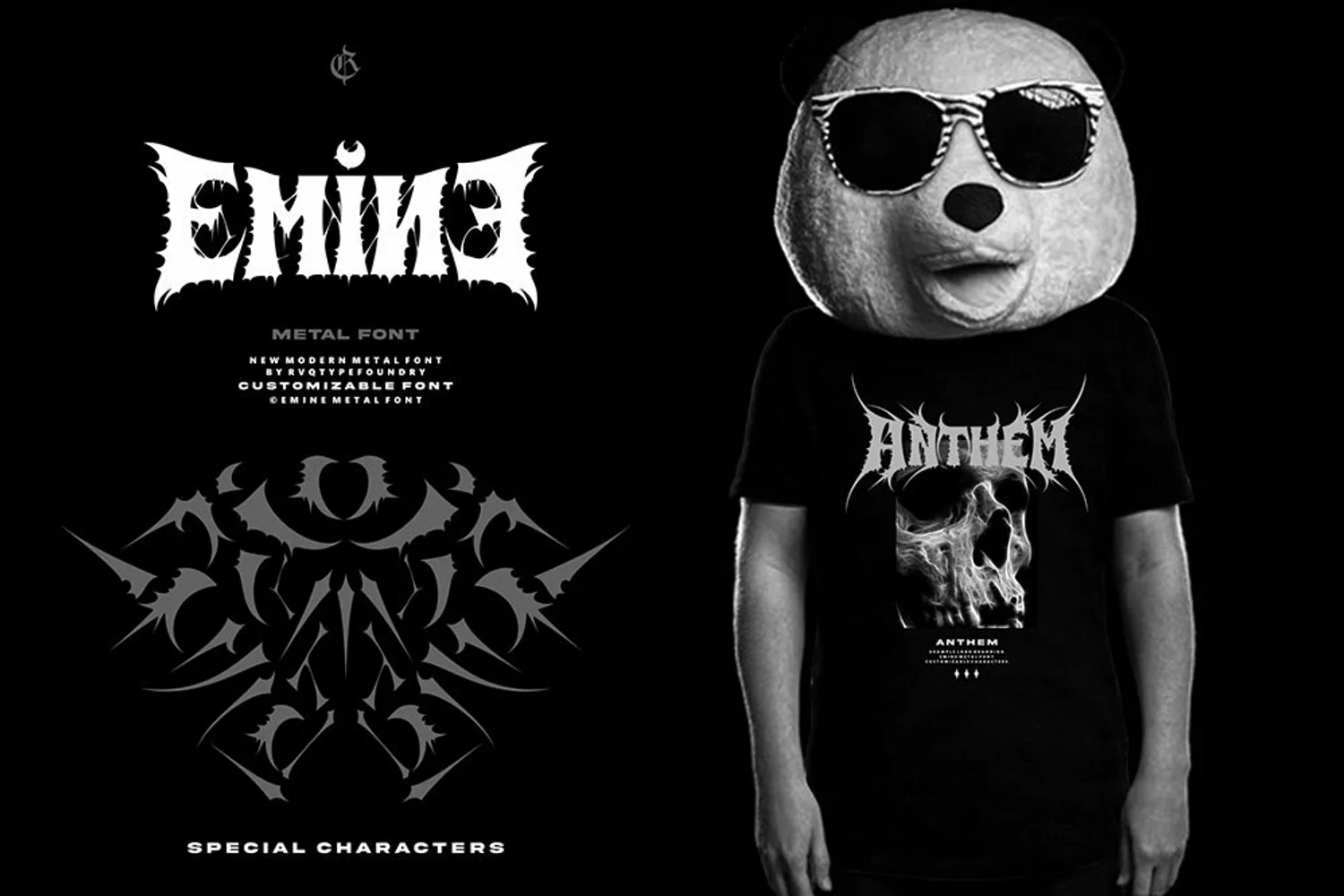
Emine metal font
Emine metal font is the new font bold metal from Rvq typefoundry ,was created as a dual-purpose font To create the beautiful combination, just mix your words with the alternative glyphs and Ornament. Perfect for : for Band, Music, clothing, Branding, Logos, Greeting Cards, Stationery Design, Invitations, T-shirts, Apparel, Packaging designs, Posters, Typographic Design, and so much more..
- Character Set A-Z
- Numerals & Punctuations (OpenType Standard)
- Stylistic Alternates